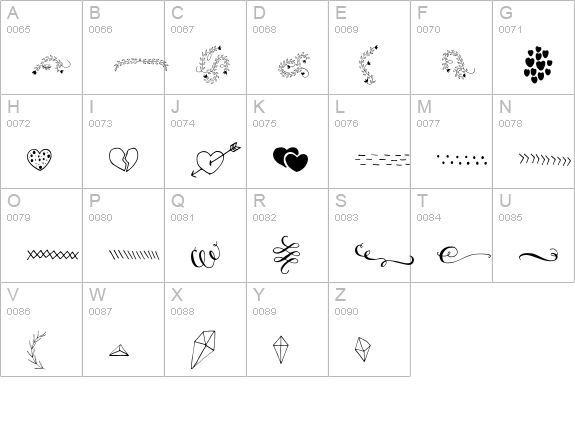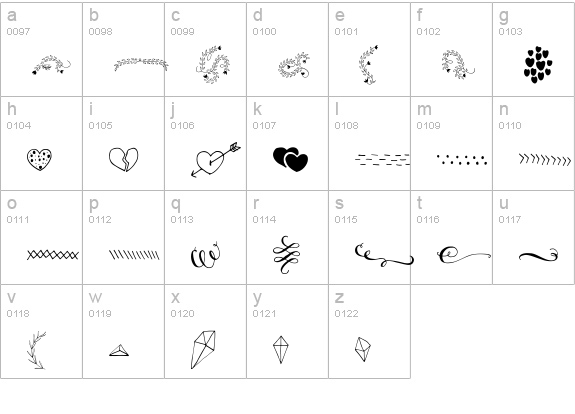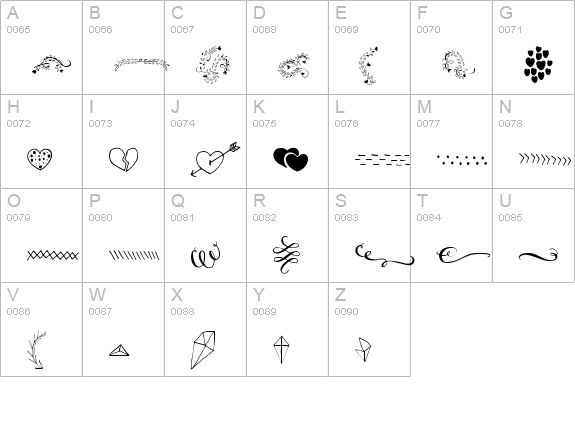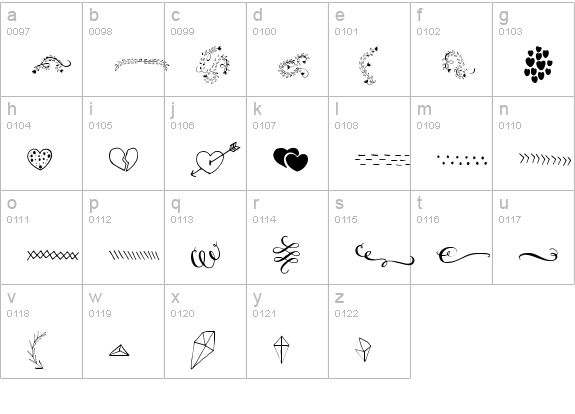
Judy Ornaments Font Details
Introducing Judy Ornaments, a captivating and whimsical font that is perfect for adding a touch of elegance and charm to your designs. This unique font features intricate ornamentation and delicate details that will make your projects stand out. Whether you are creating invitations, greeting cards, or branding materials, Judy Ornaments will bring a touch of sophistication to your work. Best of all, Judy Ornaments is completely free to download at FontsMarket.com. Simply visit the website and add this beautiful font to your collection with ease. Don't miss out on the opportunity to enhance your designs with this exquisite and versatile font. Download Judy Ornaments today and let your creativity shine!